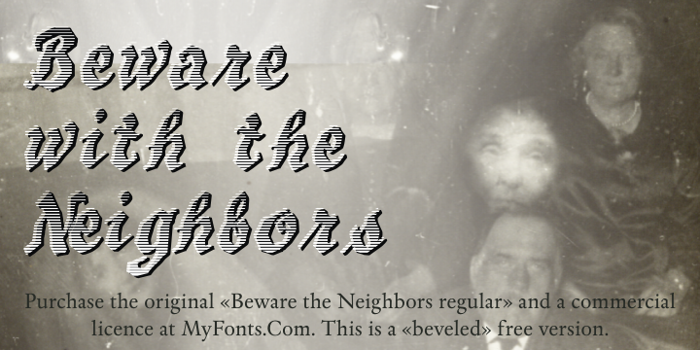
Beware The Neighboors Shadow Font
Beware the Neighbors Shadow, by Intellecta Design
Beware The Neighbors is based on “Personality Script”, a rough alphabet originally drawn by Ross F. George, and published in one of the Speedball series of lettering catalogs that ran from 1935 to 1948.
The design is something of a minor classic, and several foundries have recreated digital fonts based on it. However, most of these interpretations are very “geometric”, formed using straight lines. Intellecta preferred to create a new interpretation using smoother, curved lines to create a creepy appearance. Also included are several ligatures and OpenType stylistic alternates.